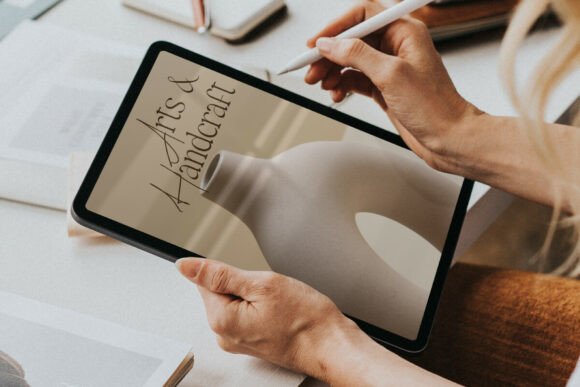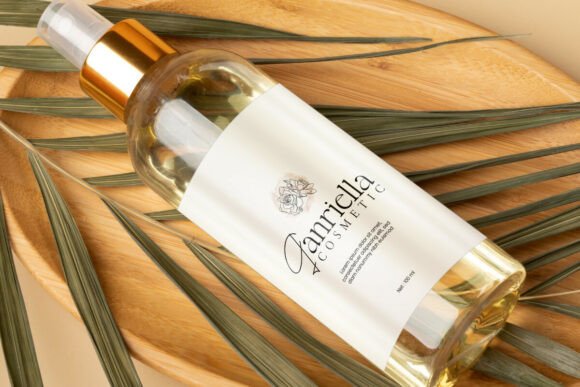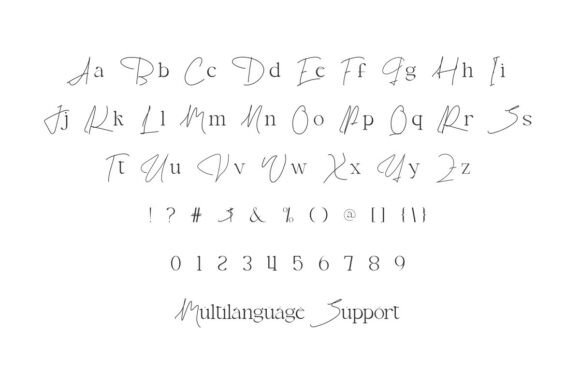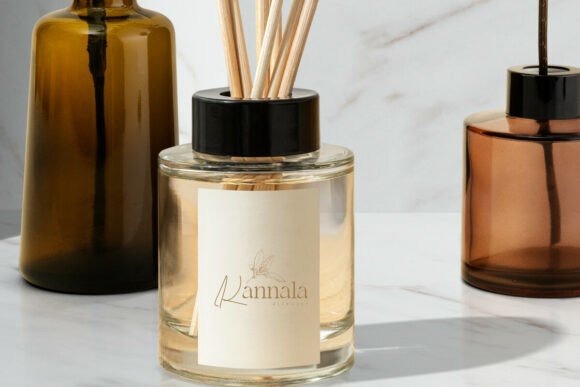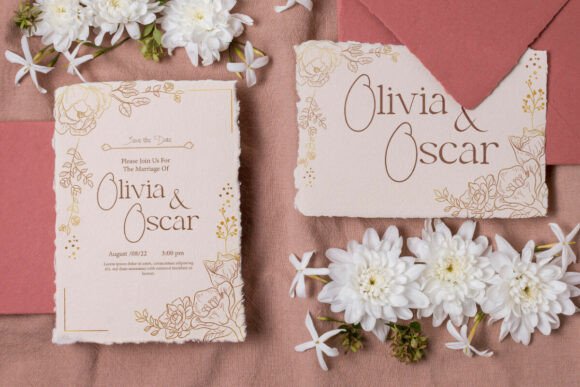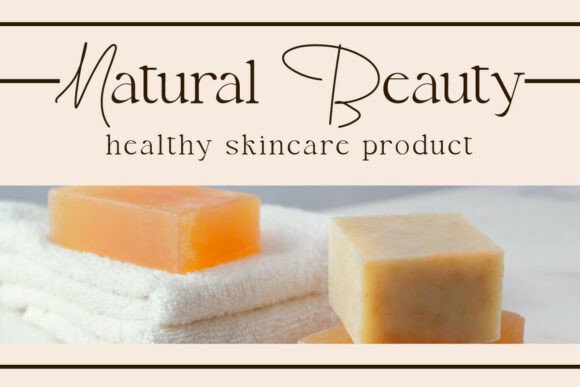
The Art of the Signature: Unveiling the Book Signing Font
There’s something magical about the moment a writer signs their book – a fleeting connection between the author’s hand and the page, imbuing the text with a personal touch. For designers, capturing that essence in a visual representation is a challenge we all face. That’s where the Book Signing Font comes in – a masterclass in delicate typography that exudes an aura of literary sophistication and editorial grace.
This elegant typeface features ultra-thin hairlines and elongated, artistic serifs, making it an ideal choice for book covers, fashion magazine headers, and upscale event branding. With its unique ligatures and sweeping terminals, the Book Signing Font elevates any project from standard to spectacular, perfect for designers seeking a refined, poetic aesthetic.
By incorporating the Book Signing Font into your design, you’ll not only add a touch of sophistication but also create a stunning visual hierarchy that sets your project apart from the rest. With its PUA encoding included, all special characters and decorative elements are easily accessible, making it a valuable addition to any designer’s toolkit.
Book Signing Font Key Features
- Font Family: Book Signing Font is a unique, handwritten font designed to mimic the style of a person signing a book. It’s ideal for book signings, literary events, and other related purposes.
- Unique Characteristics: Book Signing Font features a distinctive, flowing script style with subtle variations in letterform and stroke width, giving it a personal and authentic touch.
Book Signing Font Review
Overall, I’m a bit torn about Book Signing Font. While it has some redeeming qualities, there are also some major limitations that make it hard to wholeheartedly recommend.
- Cursive flair: The font does a great job of capturing the whimsical feel of a handwritten signature.
- Legibility: Despite its cursive nature, Book Signing Font is still quite easy to read, even at smaller font sizes.
- Playful: The font’s playful, informal vibe makes it perfect for events, parties, or any other occasion where you want to add a bit of personality to your materials.
- Lack of customization: Book Signing Font is a bit too generic, with limited options for adjusting the font’s appearance or adding custom touches.
- Inconsistent spacing: At times, the font’s spacing can be a bit off, making it look uneven or awkward in certain contexts.
- Not ideal for body text: While Book Signing Font is great for headings and titles, it’s not the best choice for large blocks of body text, where a more readable font would be better suited.
Book Signing Font is a decent choice for specific situations, but it’s not a go-to font for me. With a bit more customization and attention to spacing, it could be a real winner. As it stands, I’d recommend it for specific, one-off projects, but not for everyday use.